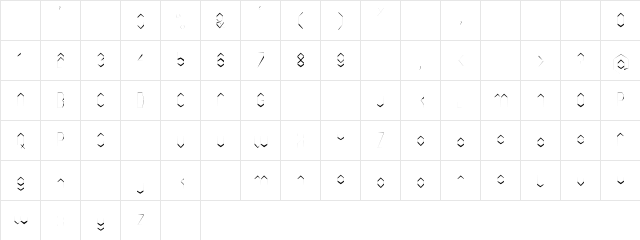
Blueprint Tech Regular
Design Context for Blueprint Tech Typeface
Blueprint Tech channels digital-age aesthetics through its sharp, structured letterforms — ideal for brands that want to signal innovation.
Pro Tip: Use Blueprint Tech in combination with a neutral sans for body text. Let it define the brand voice in headlines while keeping reading comfortable elsewhere.